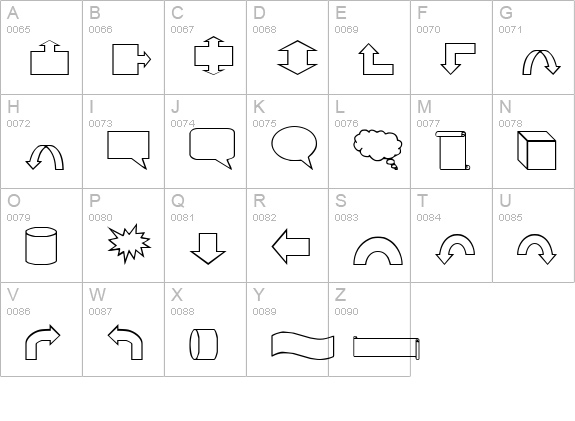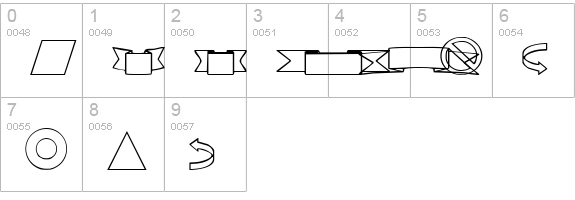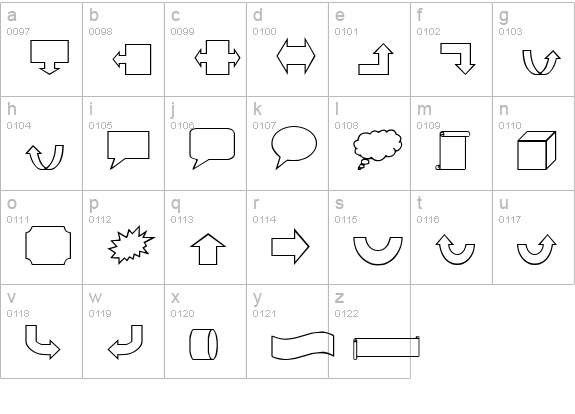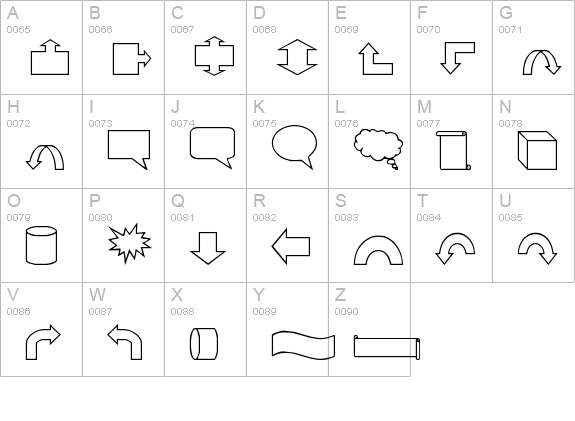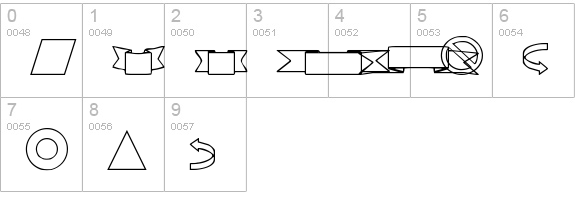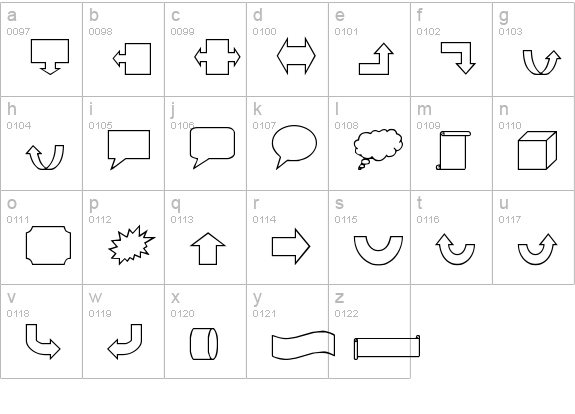
VariShapes Font Details
VariShapes font is a modern and stylish typeface that is perfect for a wide range of design projects. With its unique geometric shapes and varying line weights, VariShapes adds a dynamic and eye-catching element to any text or graphic. This versatile font is ideal for branding, logos, posters, and more. Best of all, VariShapes is available for free download at FontsMarket.com, making it accessible to designers of all levels. Embrace the creativity and flexibility of VariShapes font in your next project and watch your designs come to life with a touch of modern sophistication.